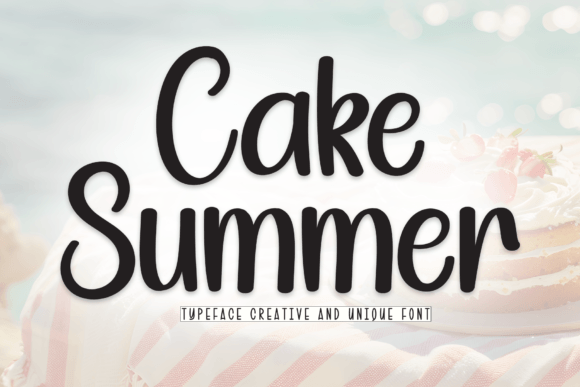
The Sweet Spot: Discovering Cake Summer Font
I’ll never forget the summer I spent working on a branding project for a local bakery. I was determined to capture the warmth and friendliness of their homemade treats, but something was missing – the perfect font. That’s when I stumbled upon Cake Summer, a casual handwritten font that instantly transported me to a sunny afternoon spent baking with loved ones. Its natural, flowing strokes and relaxed vibe were exactly what I needed to bring the brand to life.
Cake Summer has become a staple in my design toolkit, and for good reason. Here’s what I love:
- ✨ Effortless charm: The font’s easygoing style adds warmth and authenticity to any design.
- ✅ Versatility: Perfect for personal projects, social media, invitations, and more.
- 💕 Friendly vibe: Instantly conveys a sense of approachability and relaxation.
Of course, no font is perfect, and Cake Summer has a few quirks:
- 🤔 Limited formal applications: This font is best suited for casual designs; it may not be the best fit for more formal or corporate projects.
- ⚠️ Occasional kerning issues: As with any font, some manual kerning may be necessary to achieve optimal results.
Exploring Alternatives: Similar Fonts to Cake Summer
If you’re looking for similar fonts to complement Cake Summer, consider:
- Lobster: A elegant, cursive script font perfect for more formal designs or when you want to add a touch of sophistication.
- Pacifico: A beautiful, modern script font ideal for designs that require a bit more polish and refinement.
- Great Vibes: A fun, handwritten font with a similar carefree vibe to Cake Summer, great for social media and informal designs.
- Alex Brush: A whimsical, handwritten font with a more artistic feel, perfect for creative projects and illustrations.
The Story Behind Cake Summer
Cake Summer was designed with the intention of capturing the warmth and friendliness of a summer afternoon spent baking with loved ones. The font’s creator aimed to evoke a sense of relaxation and approachability, making it perfect for personal projects and casual designs.
| Font Name | Cake Summer Font |
| What type of projects is Cake Summer best suited for? | Cake Summer is ideal for personal projects, social media, invitations, and other casual designs. |
| Does Cake Summer support OpenType features? | Yes, Cake Summer supports OpenType features, including stylistic alternates and glyphs, which can be accessed in compatible design software. |
| Is Cake Summer a versatile font? | Yes, Cake Summer is a versatile font that can be used for a wide range of designs, from social media graphics to invitations and more. |